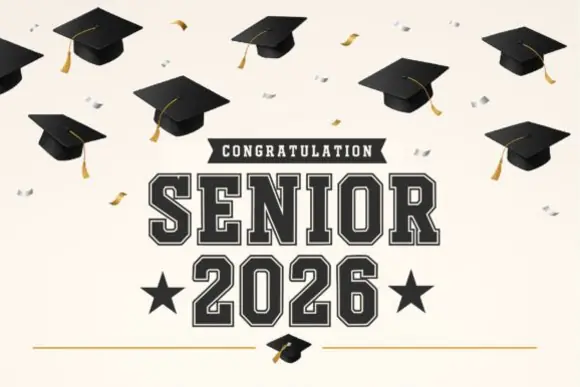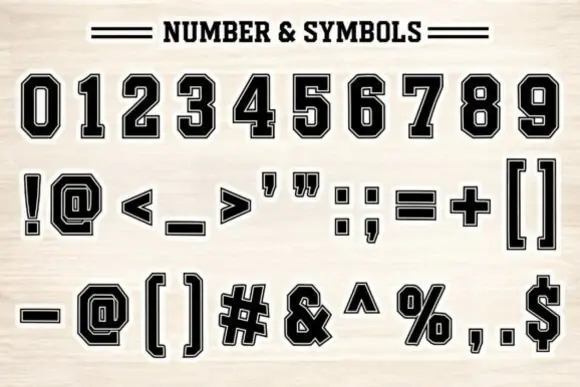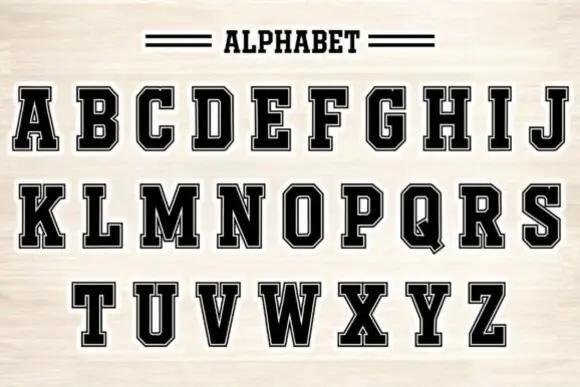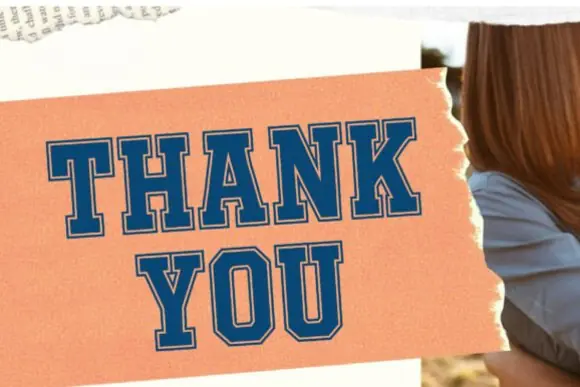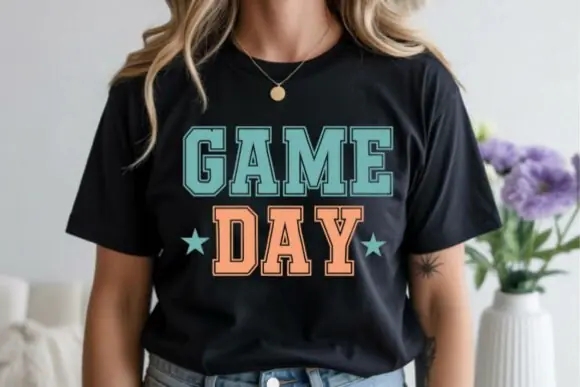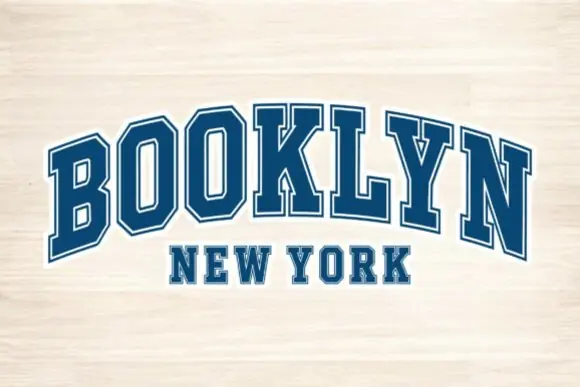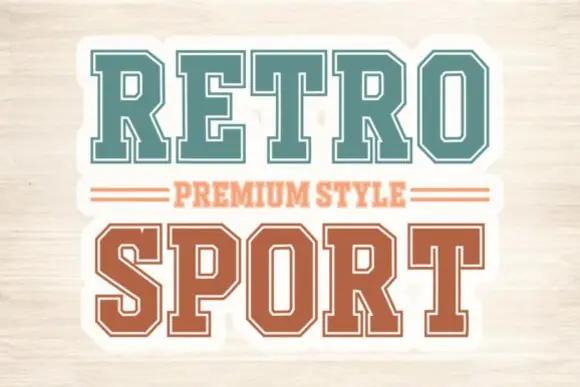
Create bold, confident, and professional sports-inspired designs with Varsity Legacy Font, a strong collegiate-style typeface inspired by classic varsity lettering, traditional university graphics, and vintage athletic culture. With its bold block shapes and clean structure, this font gives every project a powerful and authentic championship feel.
Varsity Legacy is perfect for designers, apparel sellers, sports brands, school clubs, team creators, merchandise makers, and print-on-demand sellers who want a font that feels athletic, iconic, and premium. Its strong letterforms work beautifully for t-shirts, jerseys, hoodies, team logos, school branding, championship posters, banners, flyers, stickers, product labels, and sports merchandise.
This font captures the timeless spirit of varsity teams, college pride, school identity, athletic achievement, and classic sports heritage. Whether you are designing a football team logo, basketball merch, university-themed apparel, vintage sports poster, fitness brand identity, or school event graphic, Varsity Legacy delivers strength, clarity, and bold visual impact.
Its clean and readable structure makes it suitable for both digital and print projects, while its collegiate personality adds instant authenticity to athletic and academic designs.